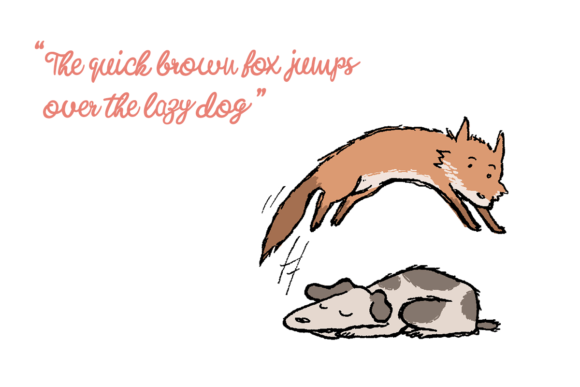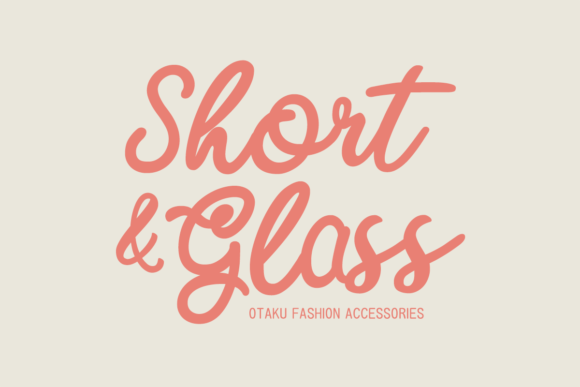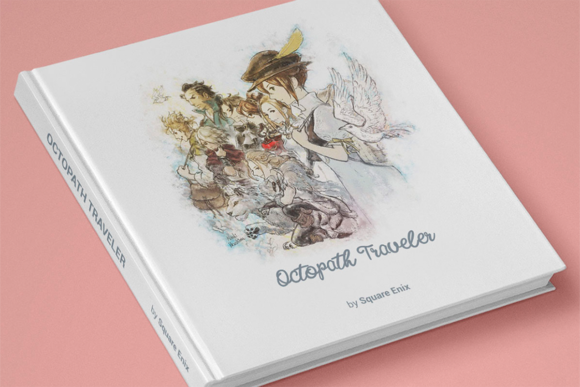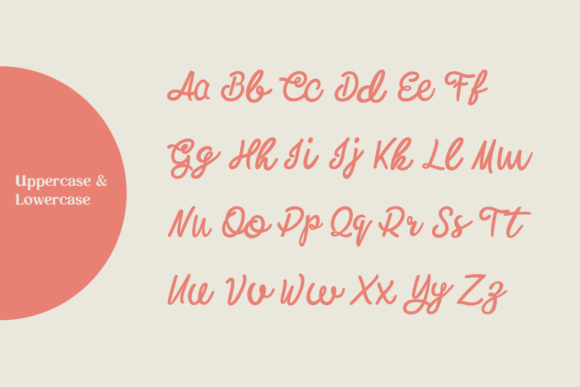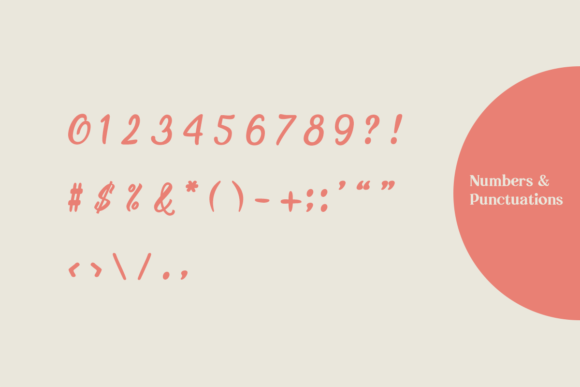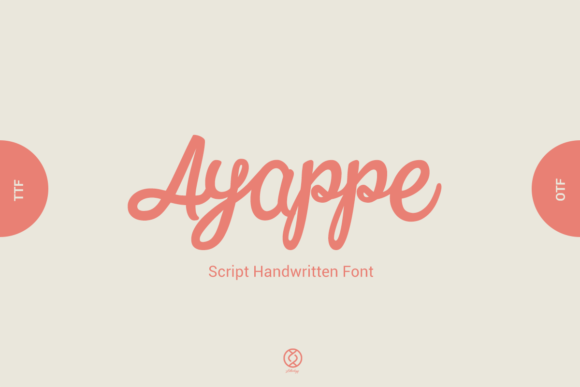
Ayappe Font: A Beautiful Handwritten Script Inspired by Traditional Japanese Hiragana Glyphs
Are you a designer or crafter looking for a unique and elegant font to add a touch of Japanese flair to your projects? Look no further than Ayappe, a stunning handwritten script font inspired by traditional Japanese hiragana glyphs. In this article, we’ll dive into the world of Ayappe, exploring its origins, features, and uses, as well as provide tips on how to incorporate this beautiful font into your designs.
What is Ayappe Font?
Ayappe is a carefully crafted handwritten script font that draws inspiration from the traditional Japanese hiragana glyphs. Hiragana is one of the three main scripts used in the Japanese writing system, known for its flowing and cursive style. The Ayappe font takes these classic glyphs and reimagines them in a modern, elegant script that’s perfect for a wide range of design applications.
Key Features of Ayappe Font
So, what makes Ayappe font so special? Here are some of its key features:
- Unique and elegant design: Ayappe’s handwritten script style is both beautiful and distinctive, making it perfect for designs that require a touch of sophistication.
- Inspired by traditional Japanese hiragana glyphs: The font’s inspiration from traditional Japanese writing systems gives it a unique cultural flair that’s sure to stand out.
- Handwritten with love and care: Each letter and glyph has been carefully crafted by hand, giving Ayappe a personal and organic feel.
- Multilingual support: Ayappe supports multiple languages, making it a great choice for designers working on international projects.
Uses for Ayappe Font
Ayappe is a versatile font that can be used in a wide range of design applications, including:
- Branding and logos: Ayappe’s unique and elegant design makes it perfect for creating custom logos and brand identities.
- Wedding and event invitations: The font’s romantic and sophisticated style makes it ideal for wedding invitations, event invitations, and other formal correspondence.
- Packaging and product design: Ayappe can add a touch of Japanese flair to product packaging, labels, and other design materials.
- Digital and print media: The font can be used in digital media, such as social media graphics, and print media, like brochures, posters, and flyers.
Tips for Using Ayappe Font
Here are some tips for getting the most out of Ayappe font:
- Pair with complementary fonts: Ayappe looks great when paired with clean, sans-serif fonts like Arial, Helvetica, or Open Sans.
- Experiment with colors: The font’s elegant design works well with a range of colors, from bold and bright to soft and pastel.
- Use it sparingly: Ayappe’s unique design makes it perfect for headlines, titles, and other highlight text, but use it sparingly to avoid overwhelming the design.
Ayappe font is a beautiful and elegant handwritten script font that’s perfect for designers and crafters looking to add a touch of Japanese flair to their projects. With its unique design, multilingual support, and versatility, Ayappe is sure to become a favorite font in your collection. Whether you’re working on branding, packaging, or digital media, Ayappe is a great choice for any design project that requires a little extra sophistication and style.